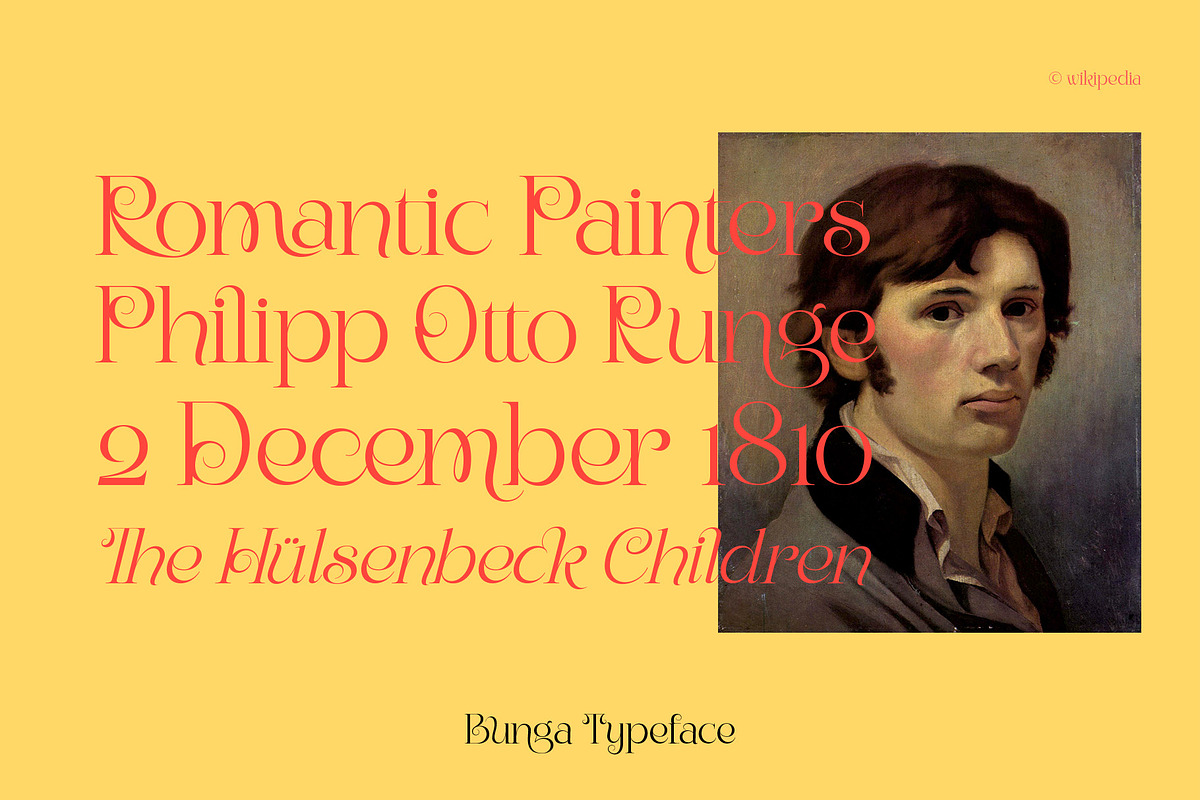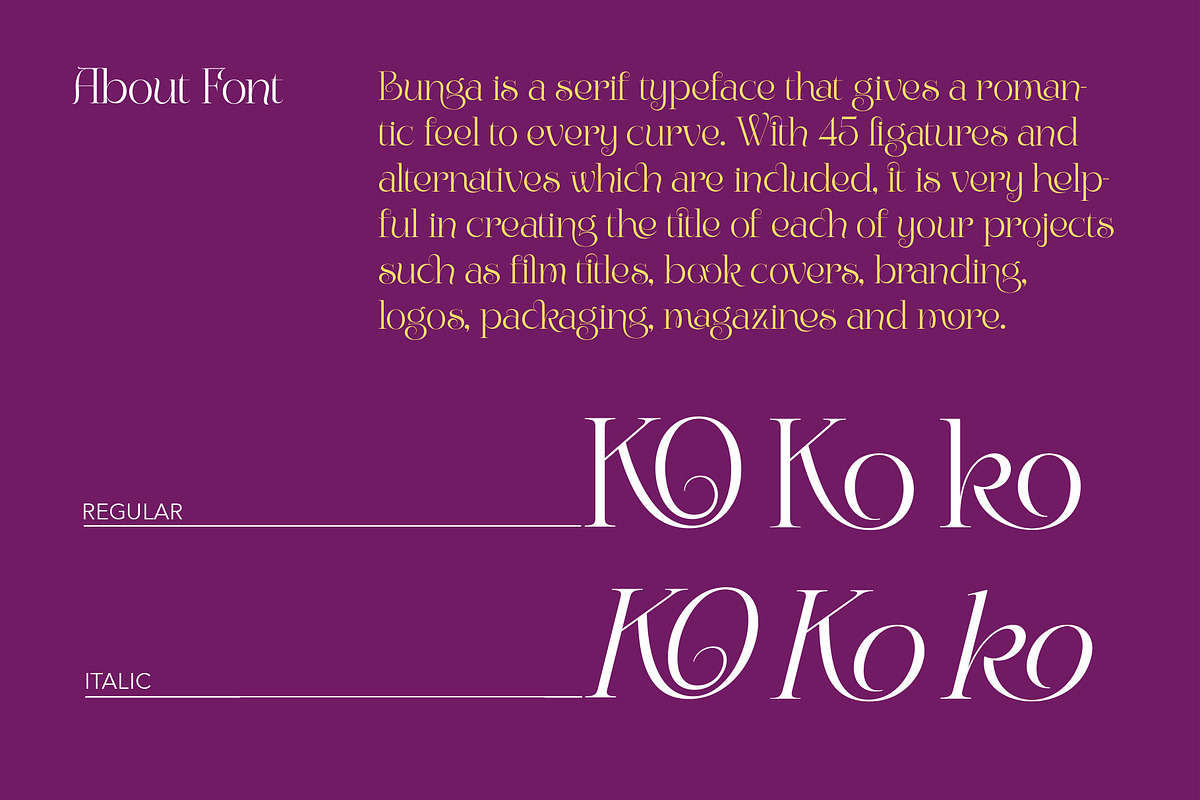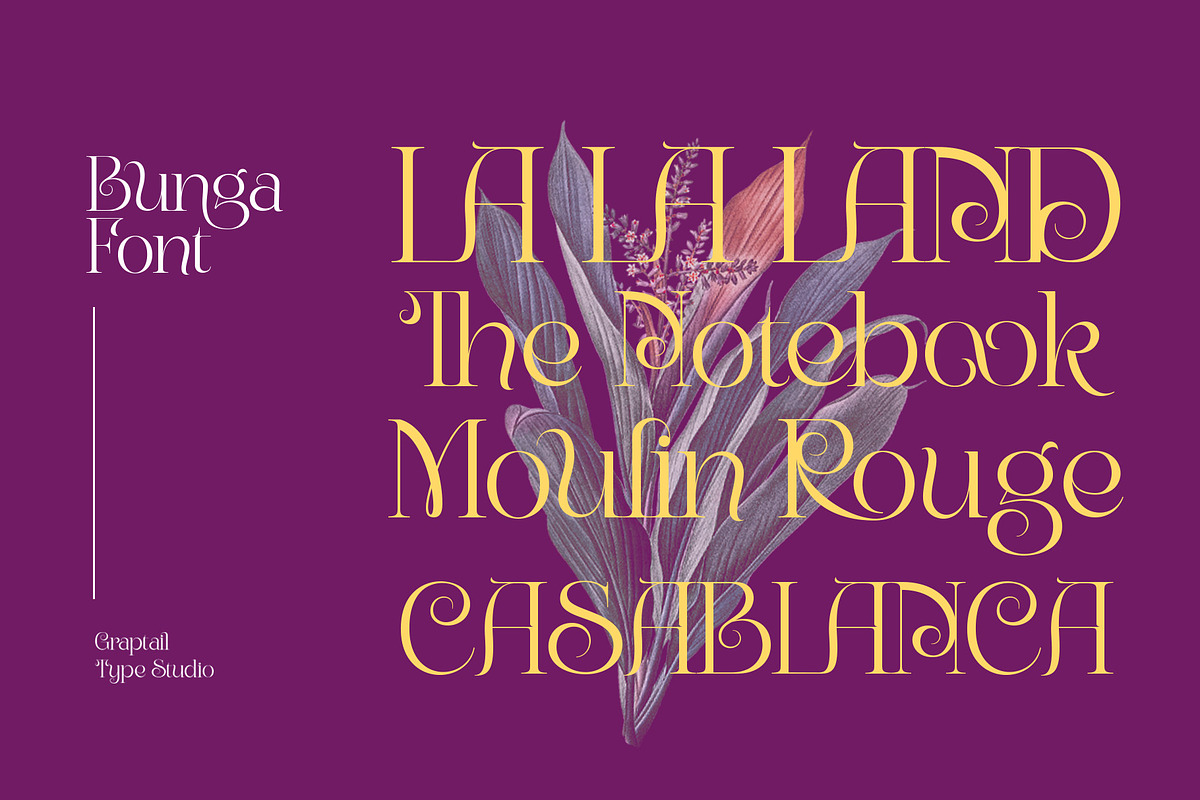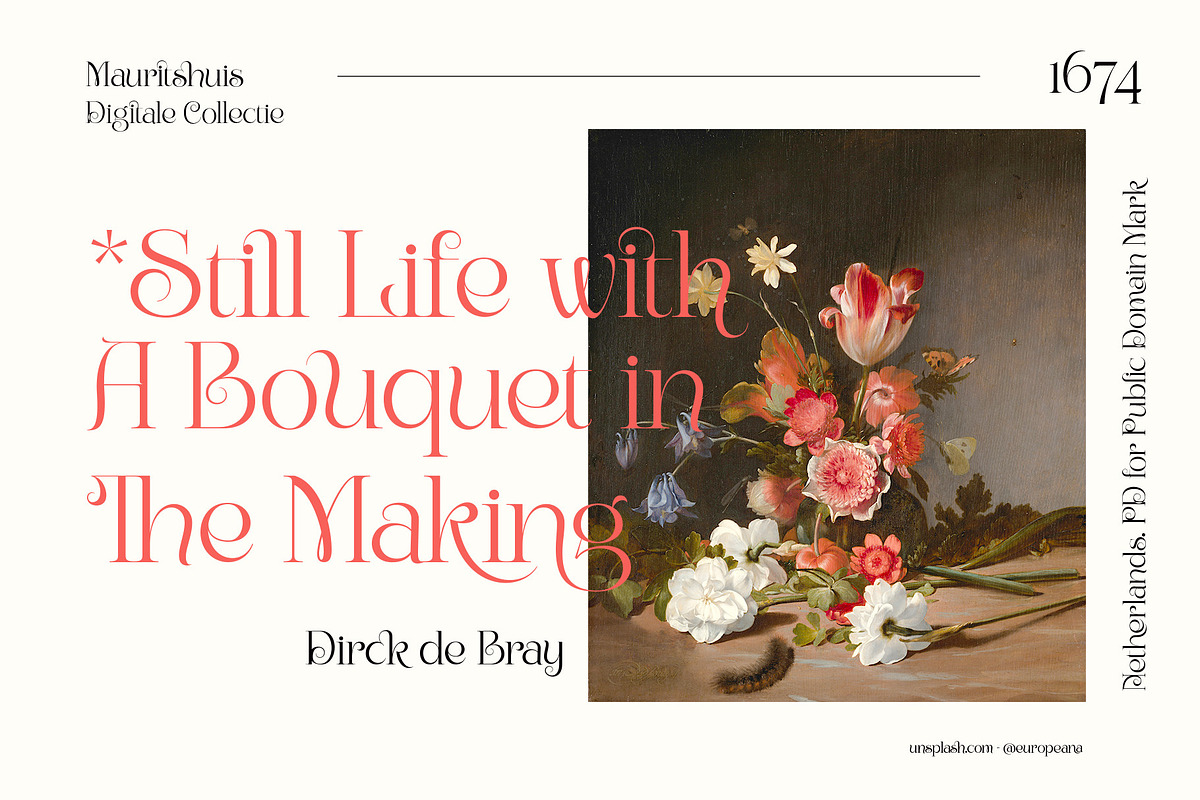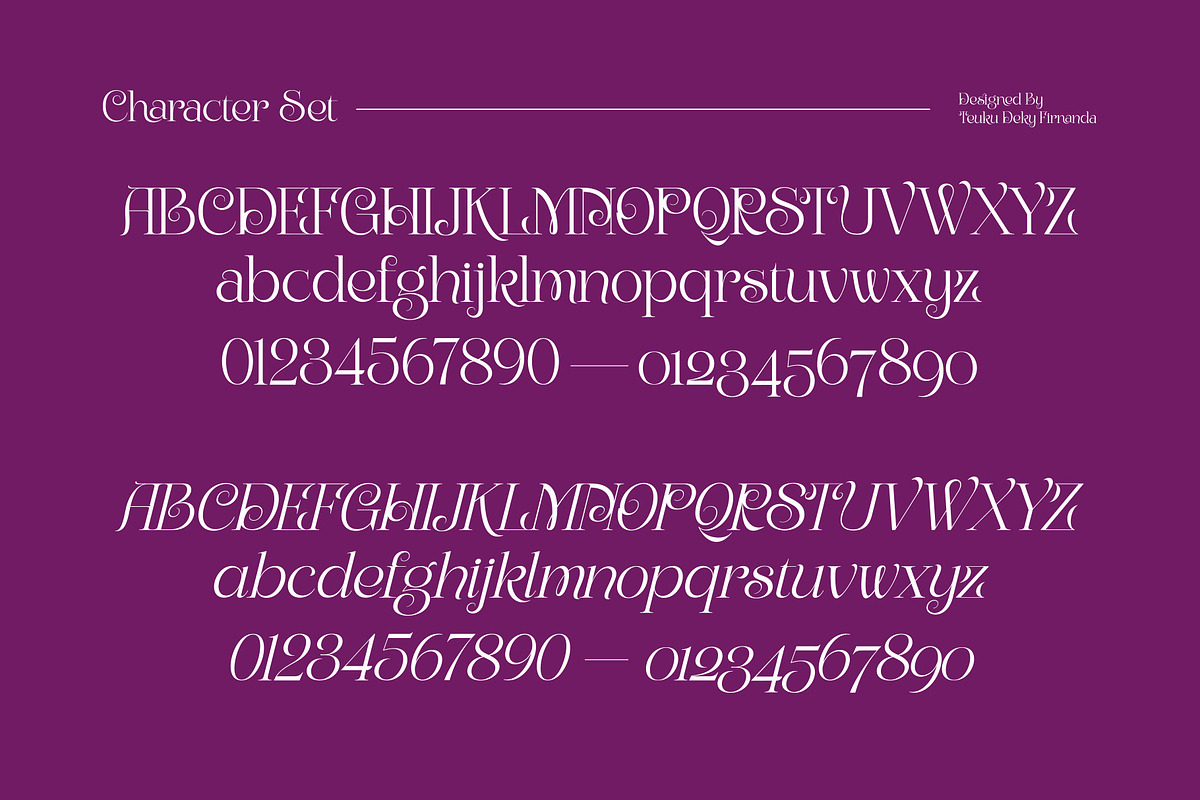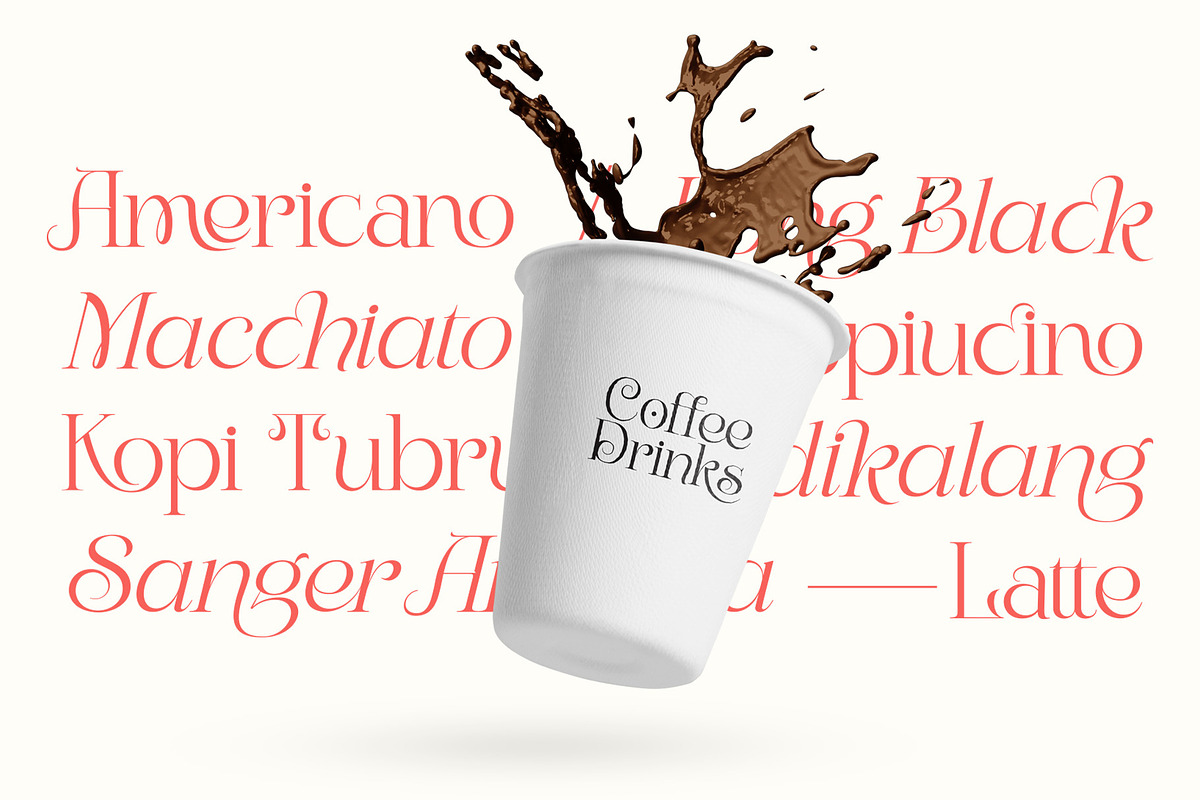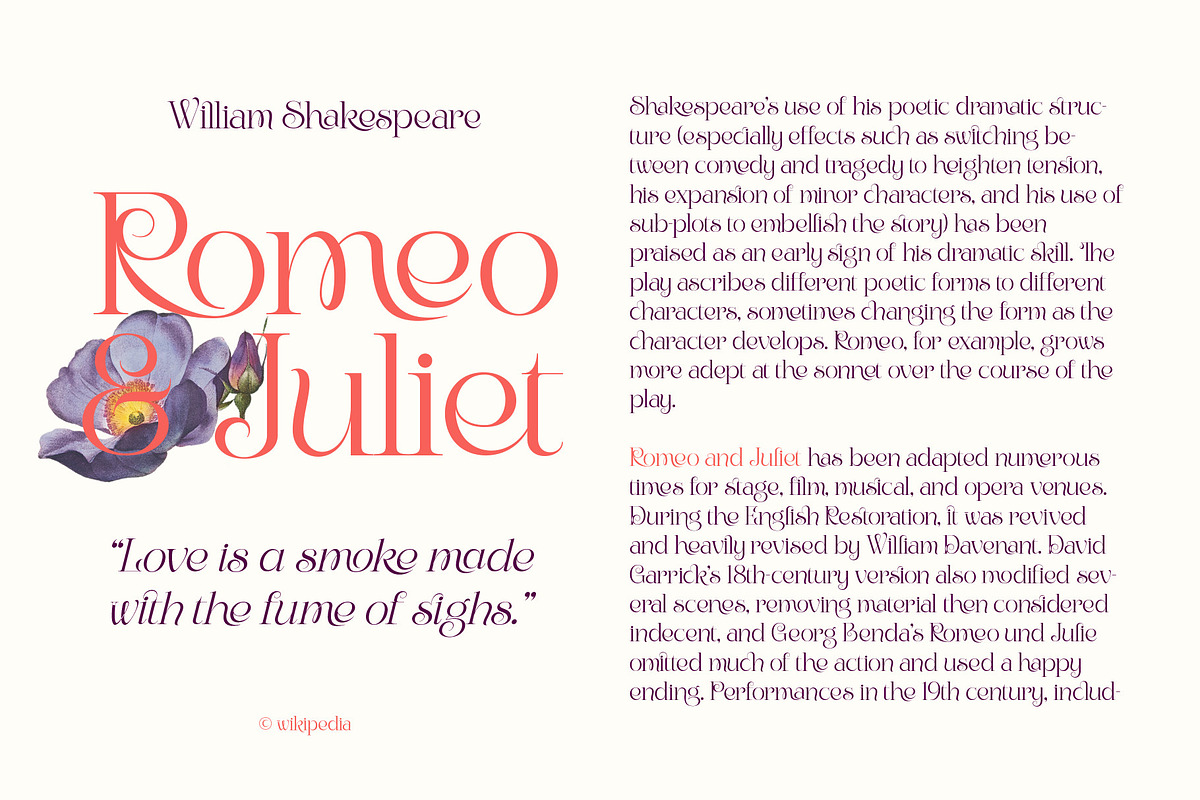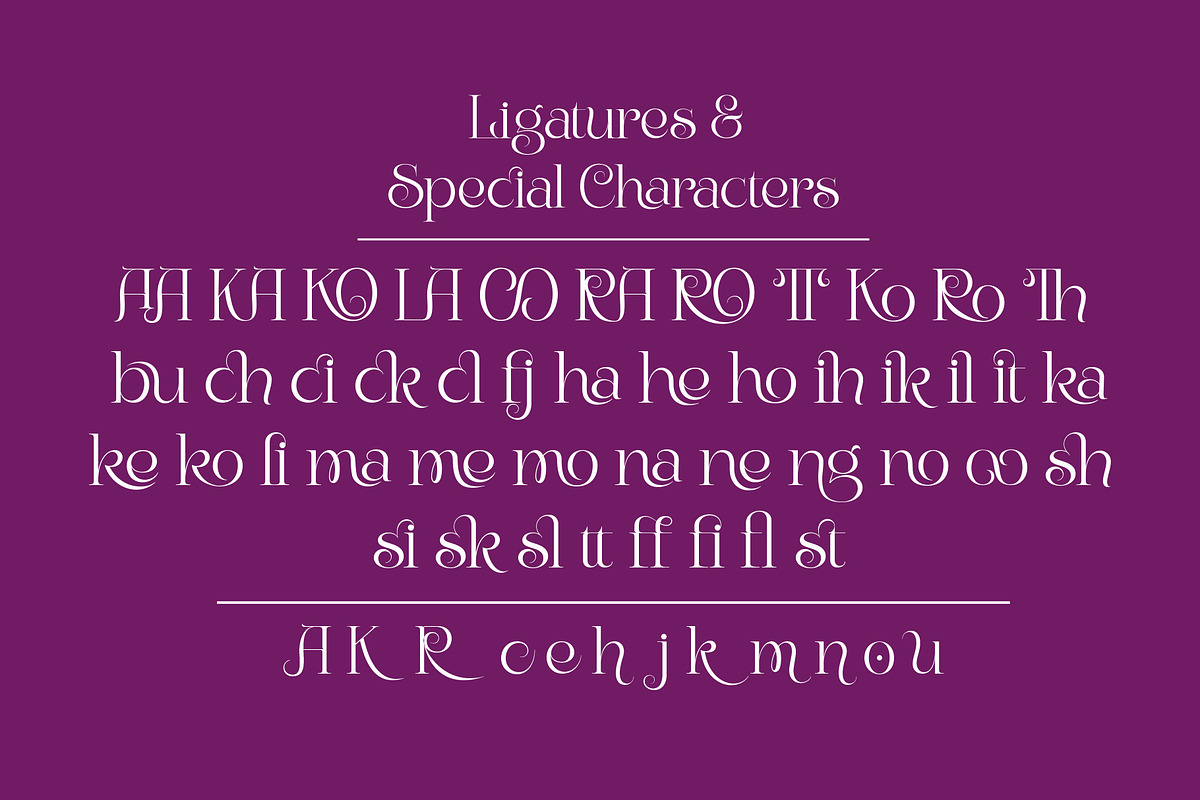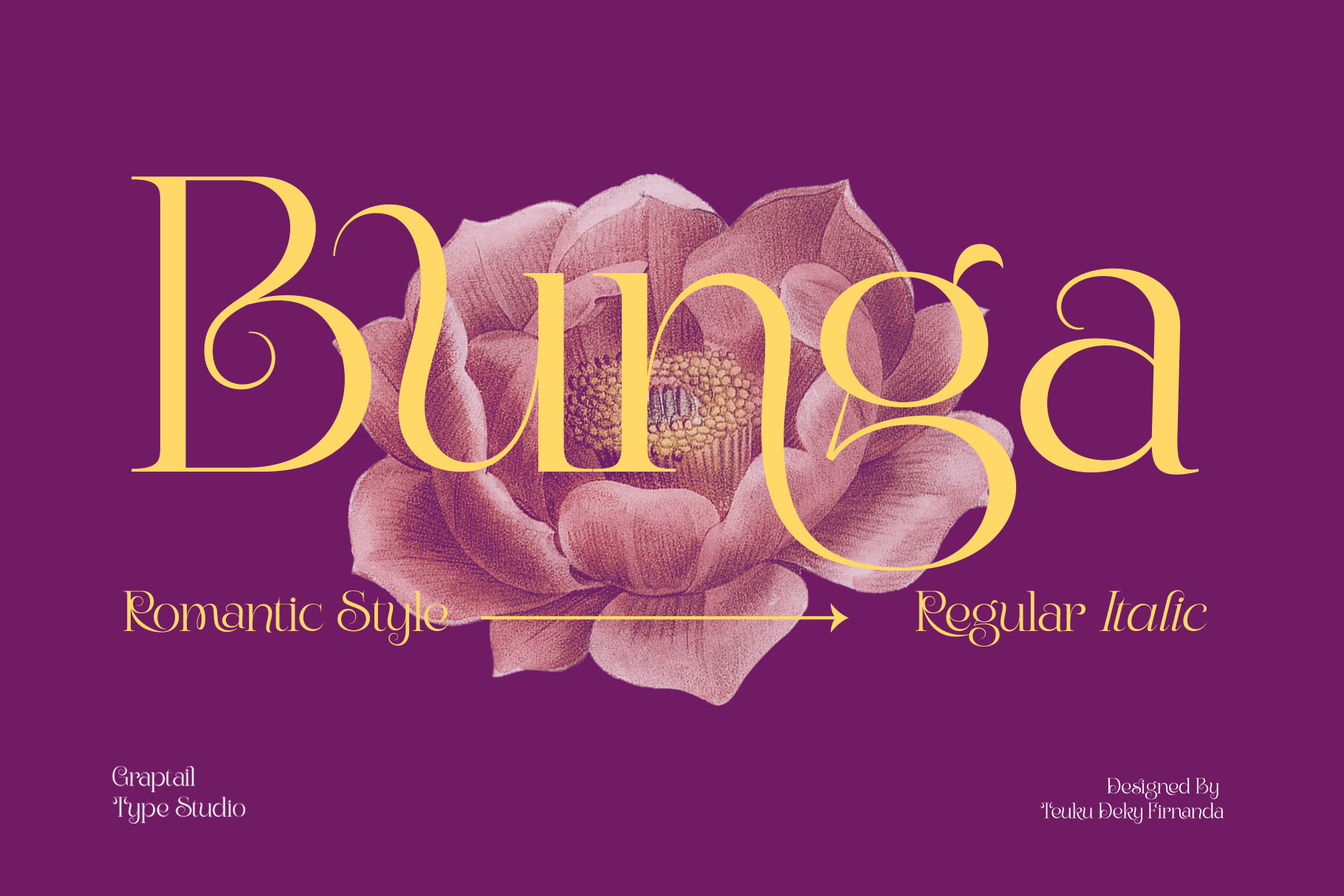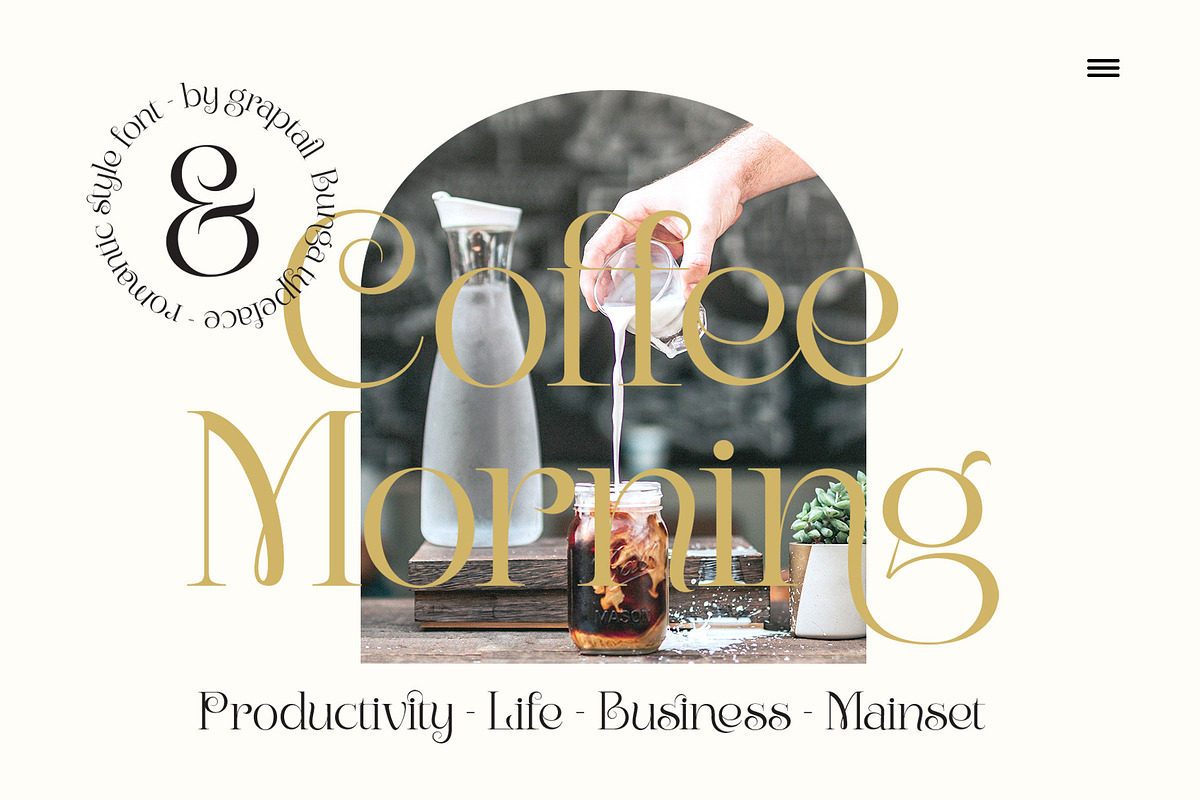
Bunga Pro | Romantic Font
Bunga is a serif typeface that gives a romantic feel to every curve. With 45 ligatures and alternates which are included, it is very helpful in creating the title of each of your projects such as film titles, book covers, branding, logos, packaging, magazines and more.
OPENTYPE FEATURES
- Discretionary Ligatures
- Stylistic Set (ss01)
- All Alternates